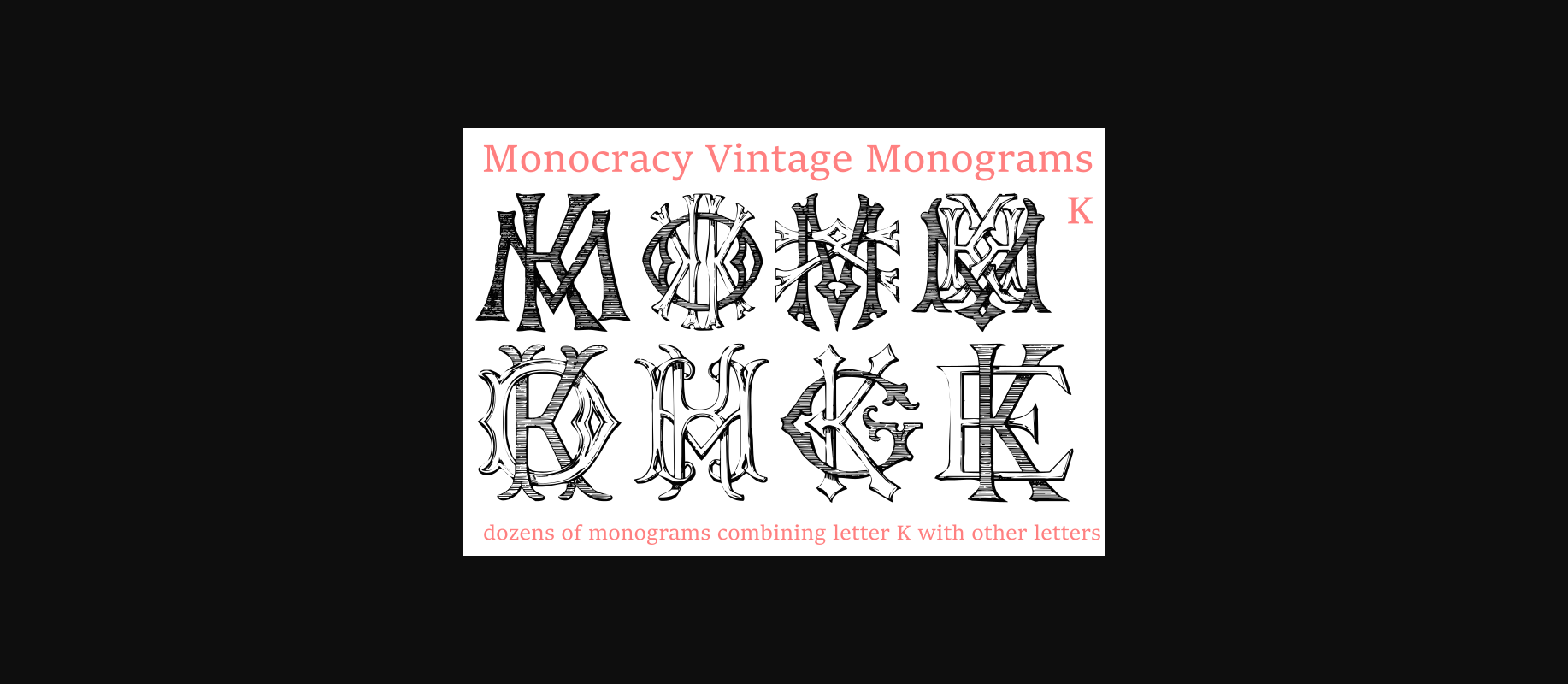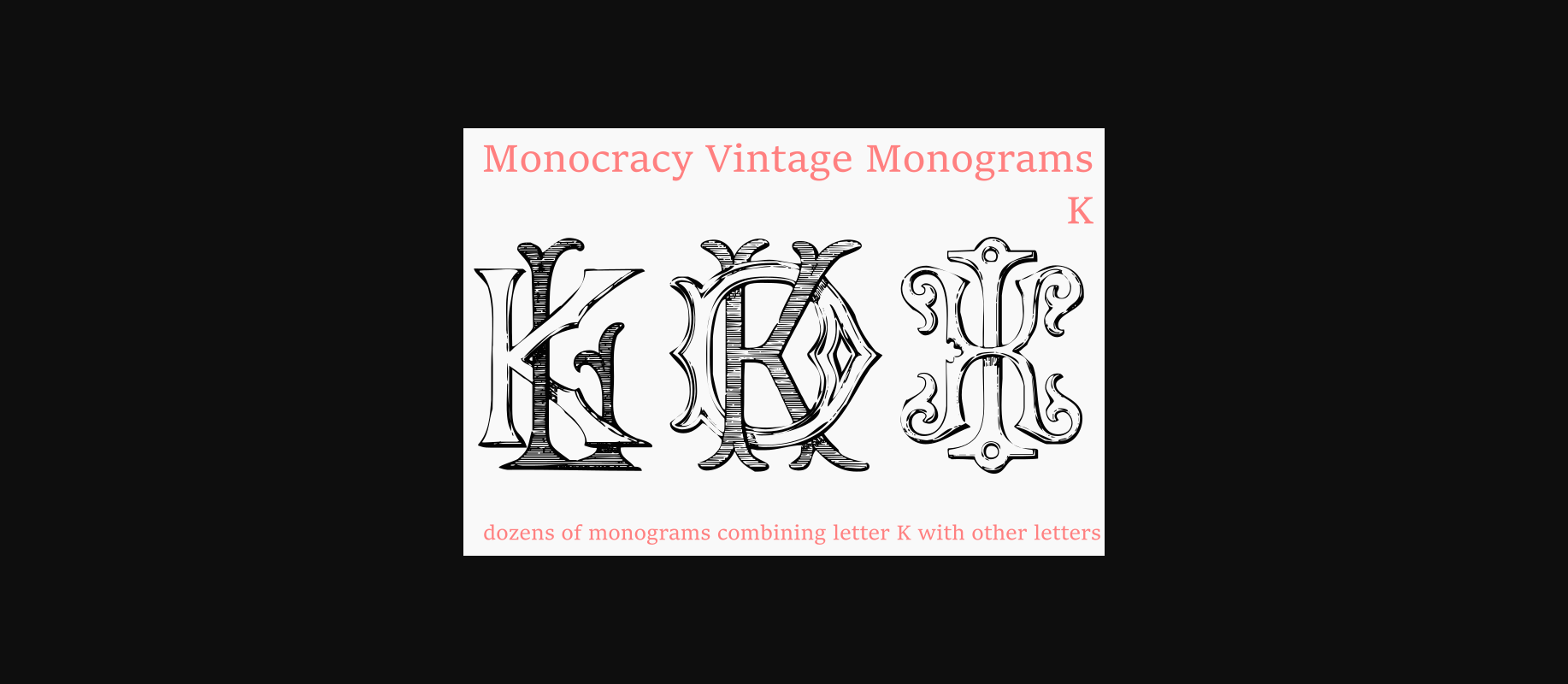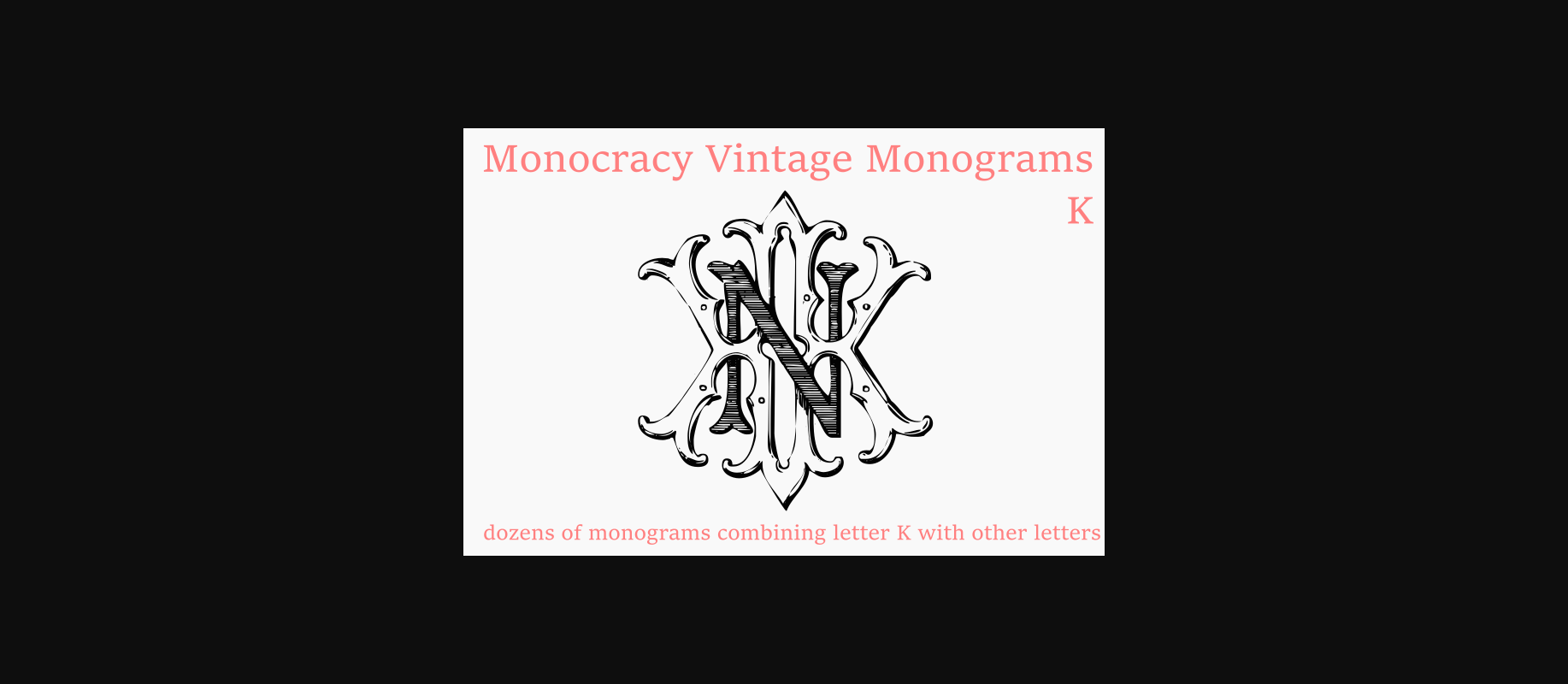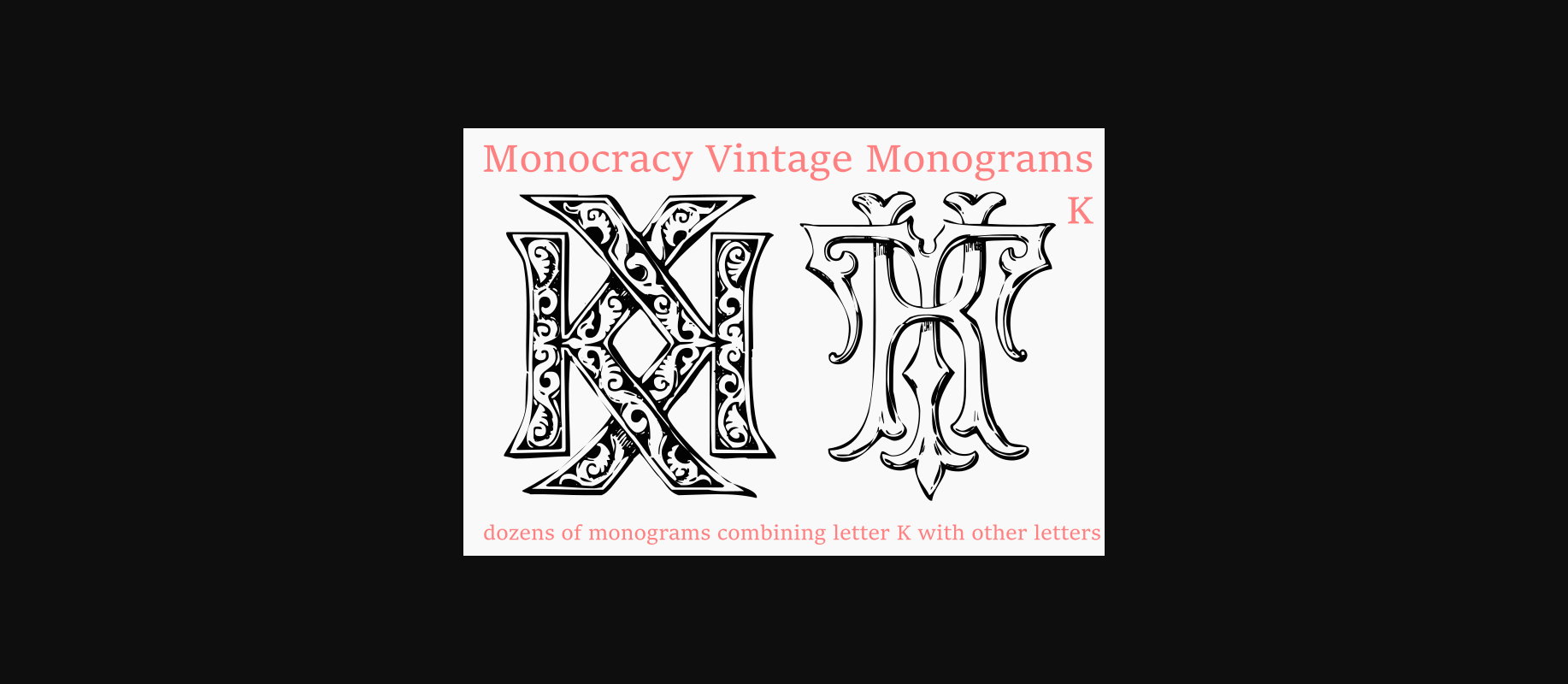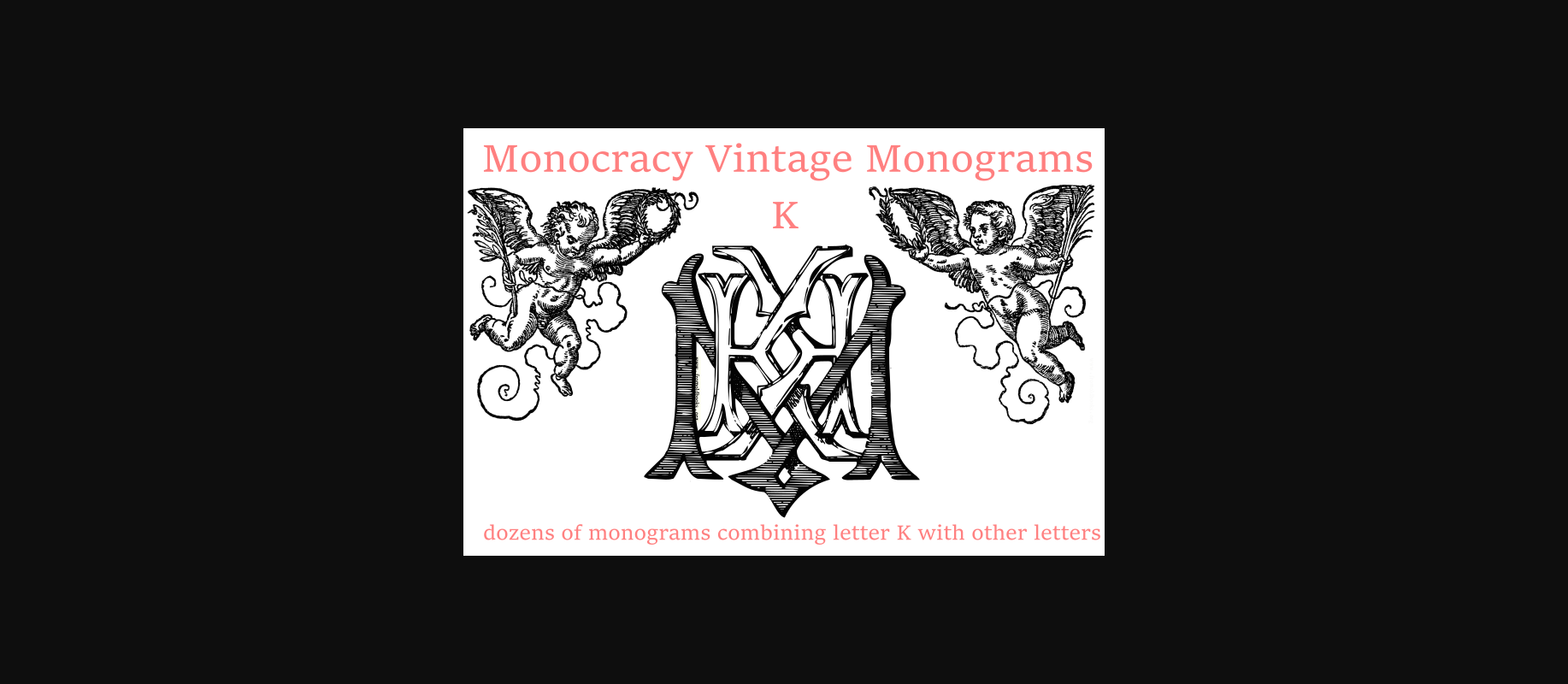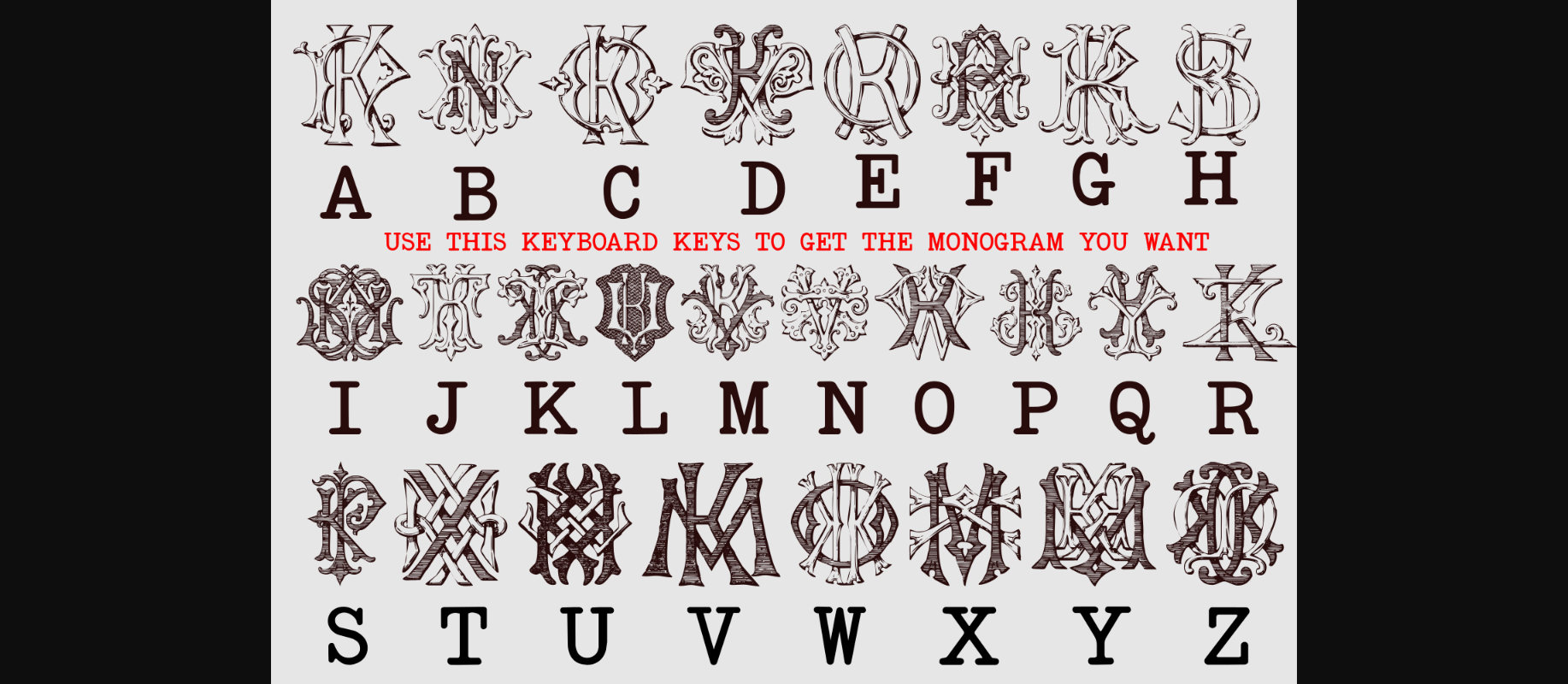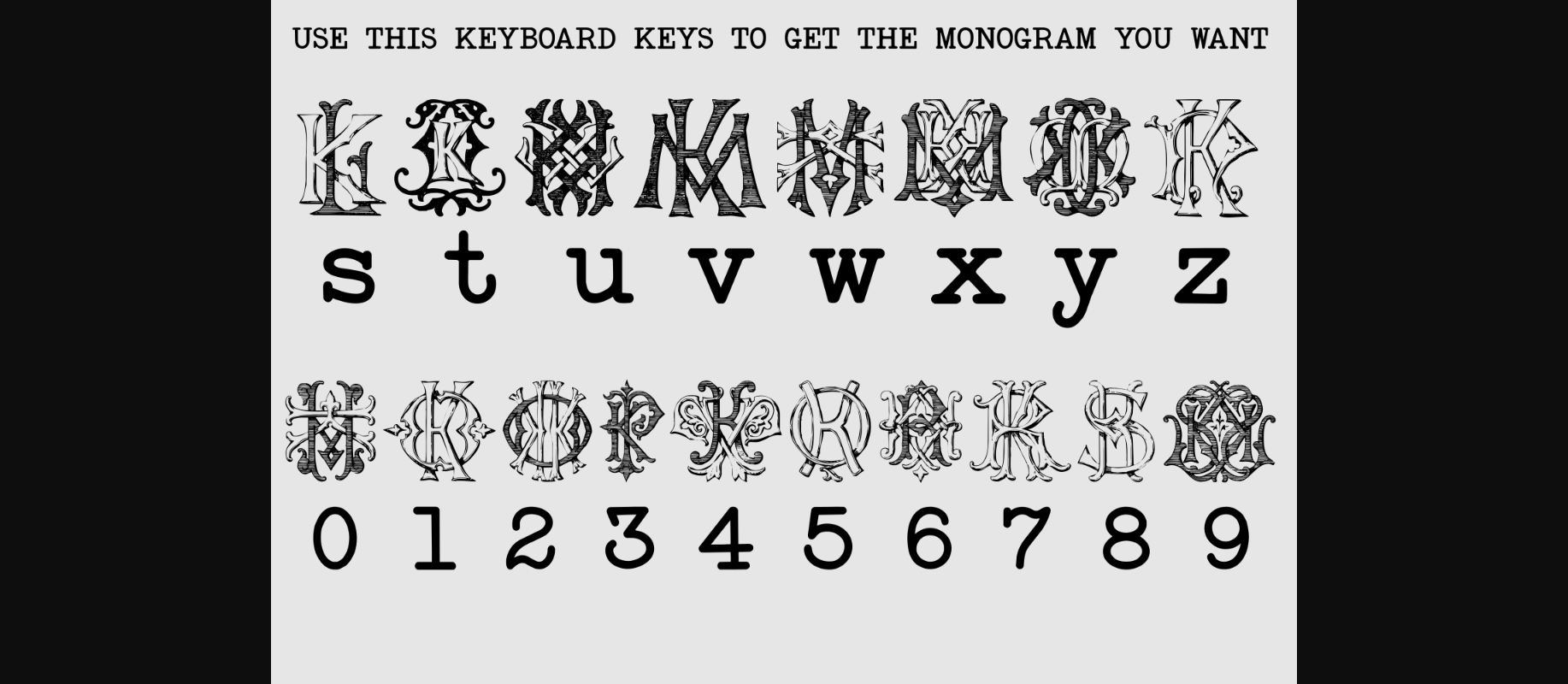
About Vintage Monograms K Font
Vintage Monograms K is a classic decorative font that features elegant and intricate monograms perfect for branding and personalization. Its ornate designs evoke the timeless style of vintage logos and can be used to add a touch of sophistication to invitations, stationery, and packaging. Vintage Monograms K brings an air of refinement and exclusivity to any project.
Note: The font files only include monogram combinations of the letter K.